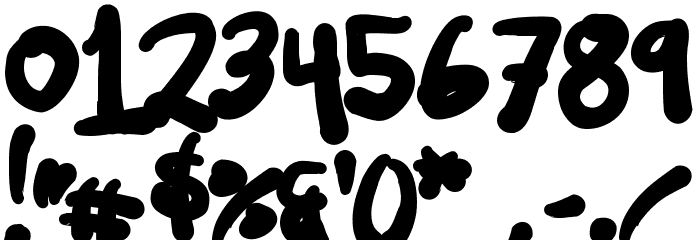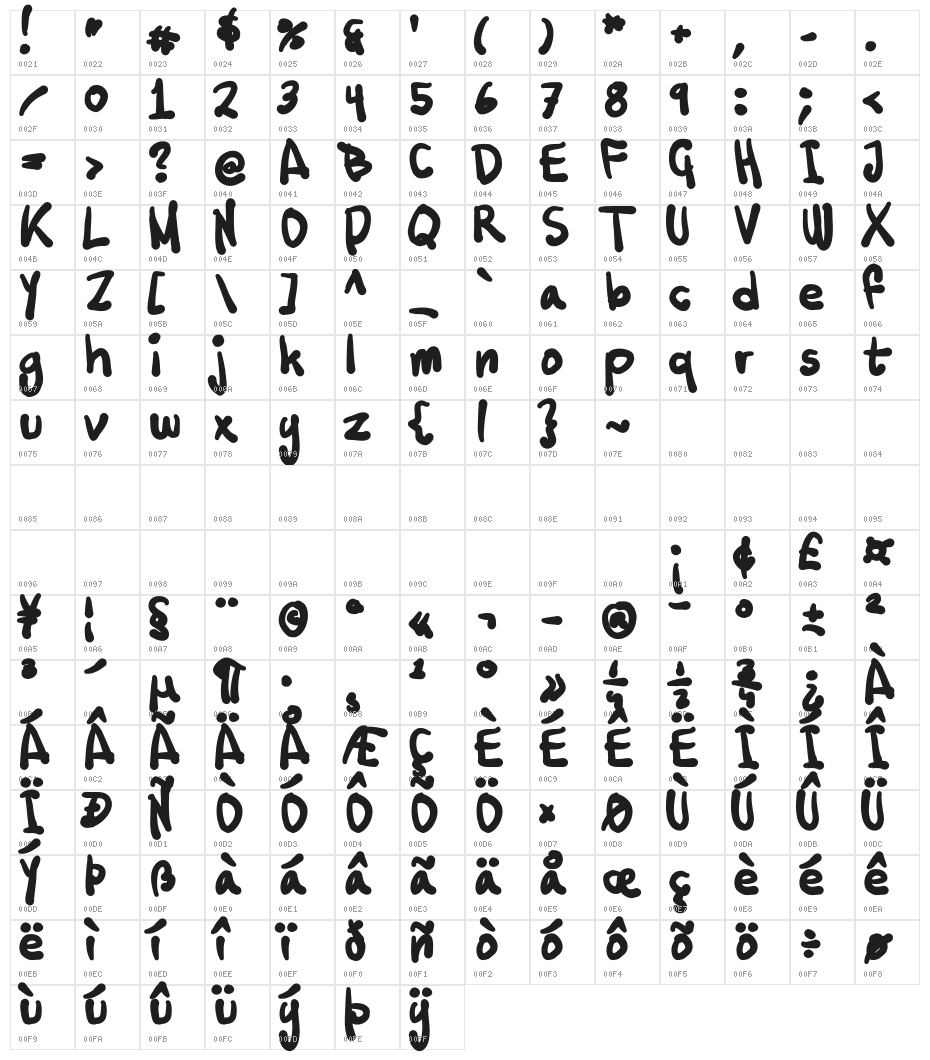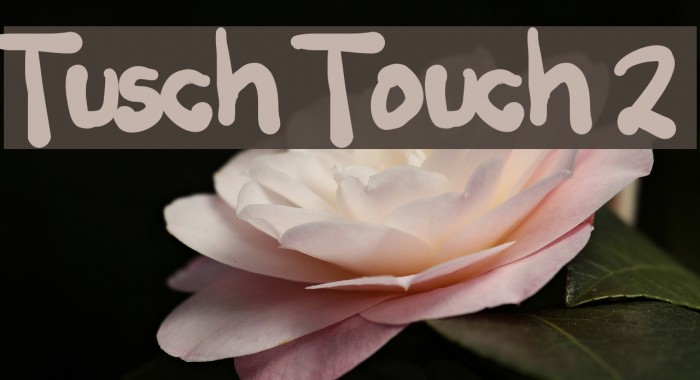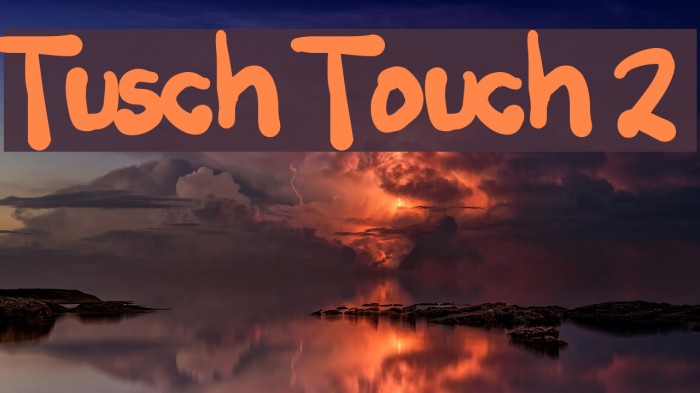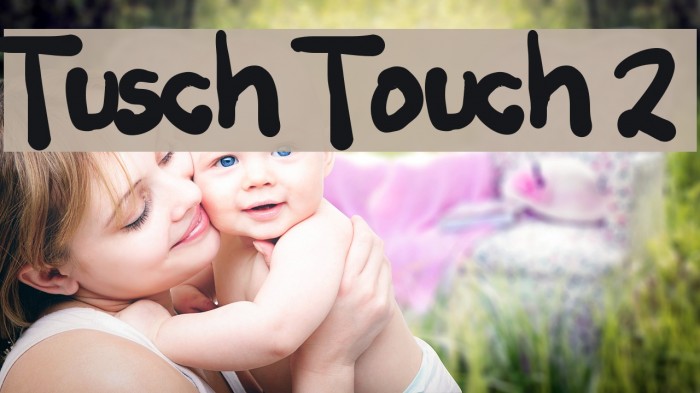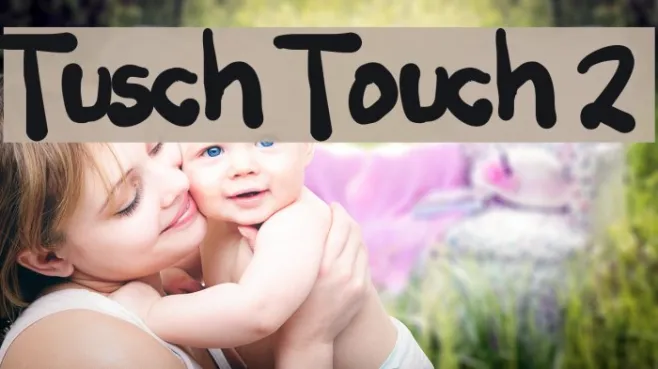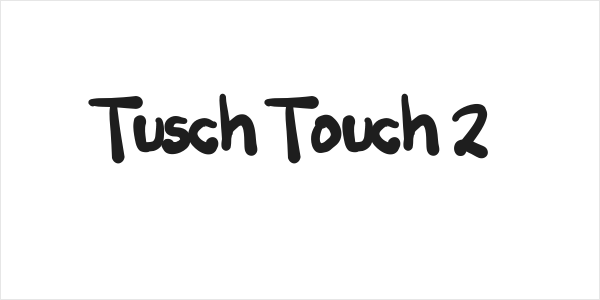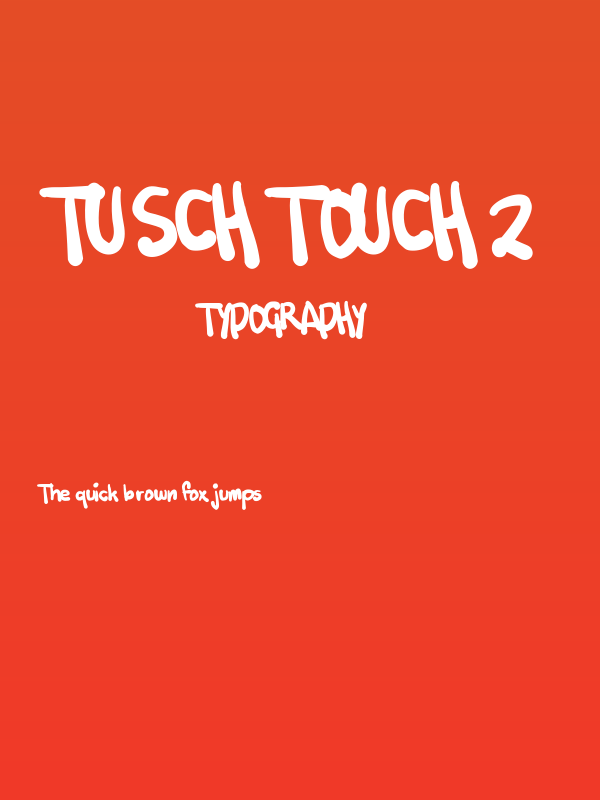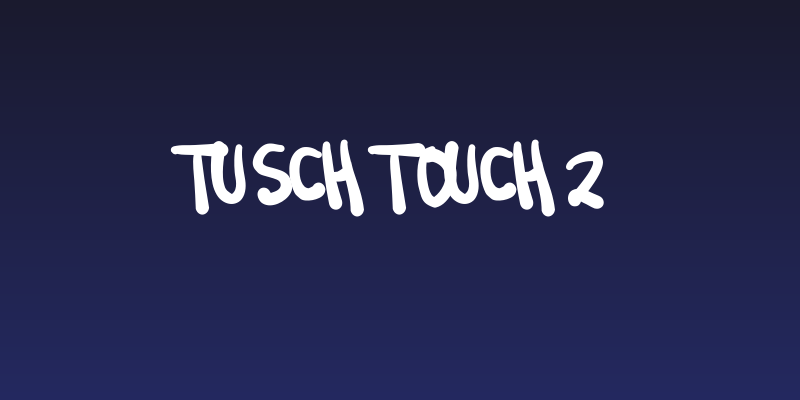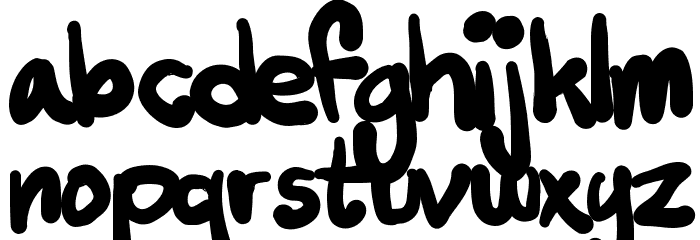
Tusch Touch 2 Font
Tusch Touch 2 Description
This font features a bold, hand-drawn style with a playful and energetic appearance. The letters are thick and rounded, giving a sense of informality and creativity. The uppercase and lowercase characters maintain a consistent style, with a slightly uneven baseline that adds to the casual feel. The numbers and special characters follow the same design, ensuring a cohesive look across all elements. This font is ideal for projects that require a fun and approachable aesthetic, such as children's books, playful branding, or casual event invitations.
| Proposed Projects | Children's books, playful branding, casual event invitations, creative posters. |